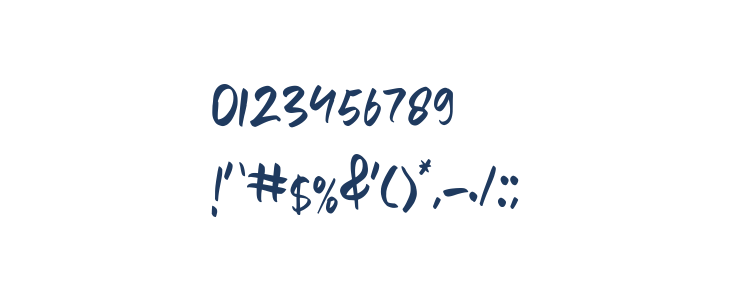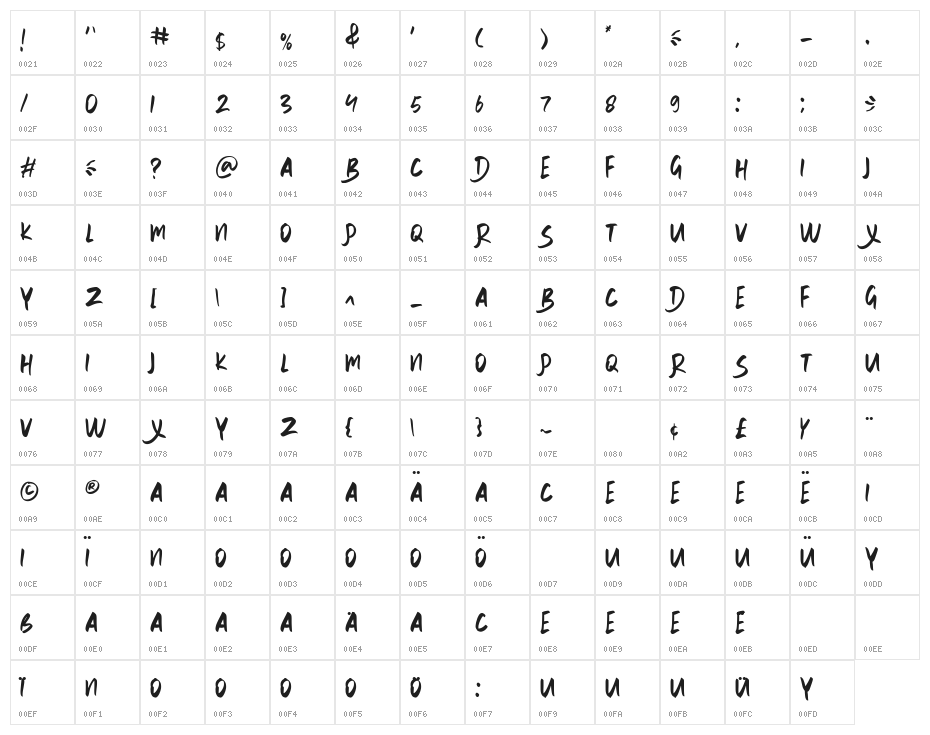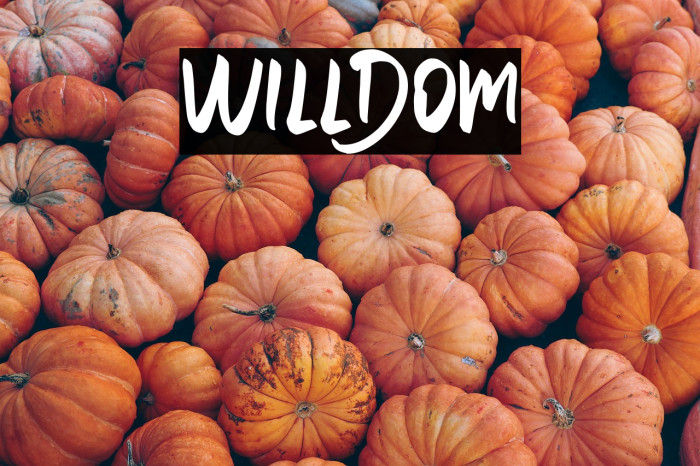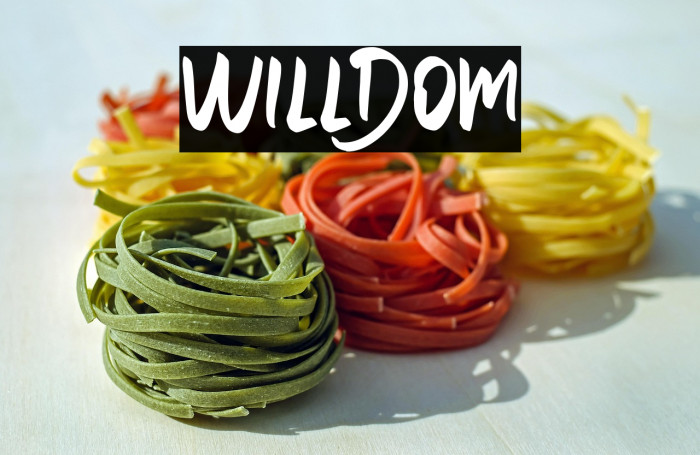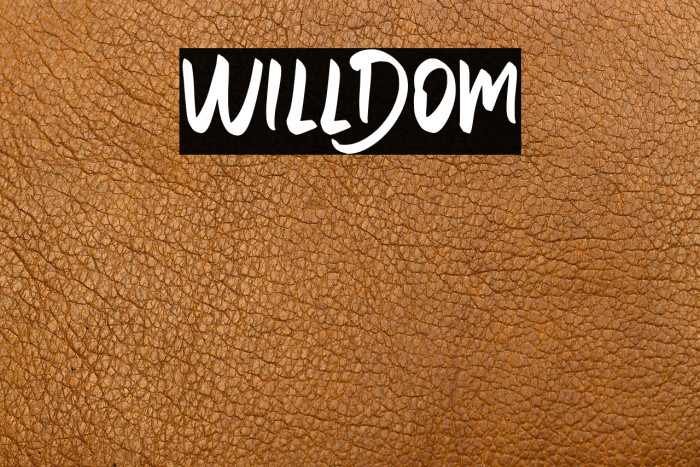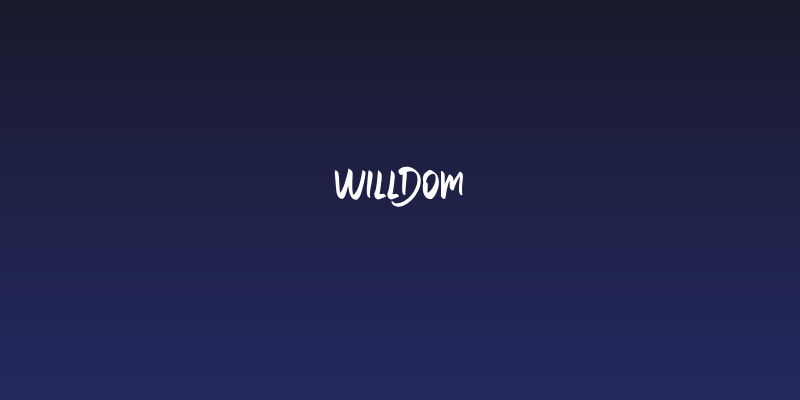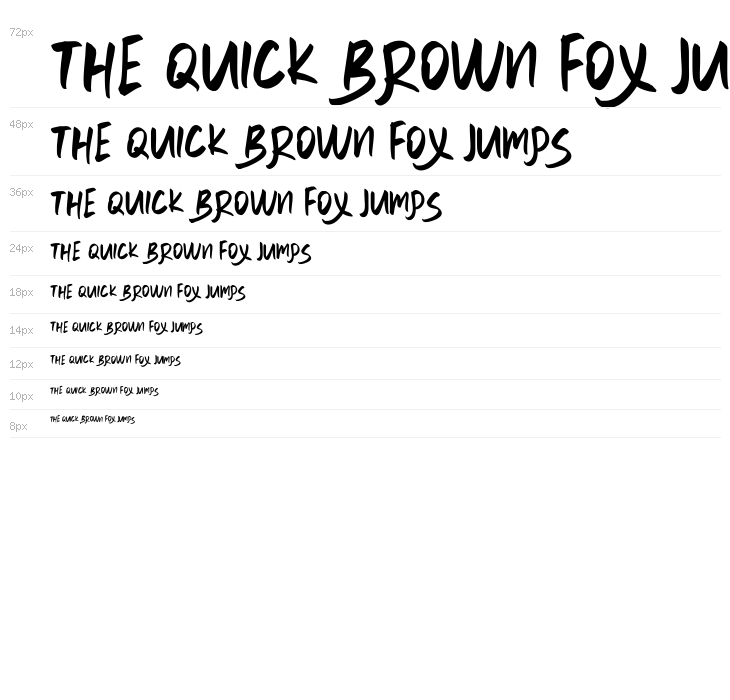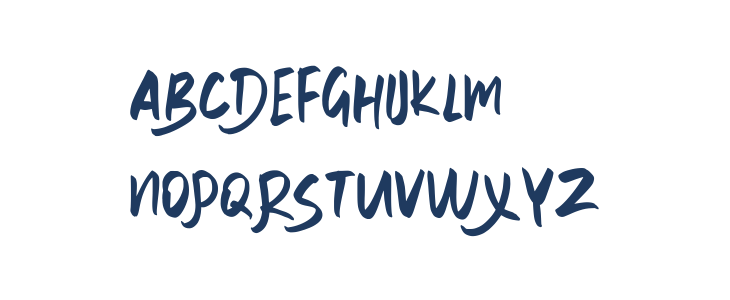
WILLDOM Font
WILLDOM Description
This font features a bold and expressive handwritten style, characterized by its fluid strokes and dynamic curves. The letters have a casual yet energetic appearance, with varying stroke widths that add a sense of movement and personality. The uppercase and lowercase letters maintain a consistent style, while the numerals and special characters complement the overall design. This font's playful and informal nature makes it suitable for creative projects that require a personal touch.
| Use Case | Logos, Headlines, Posters |
| Proposed Projects | Ideal for greeting cards, posters, branding, and social media graphics. |